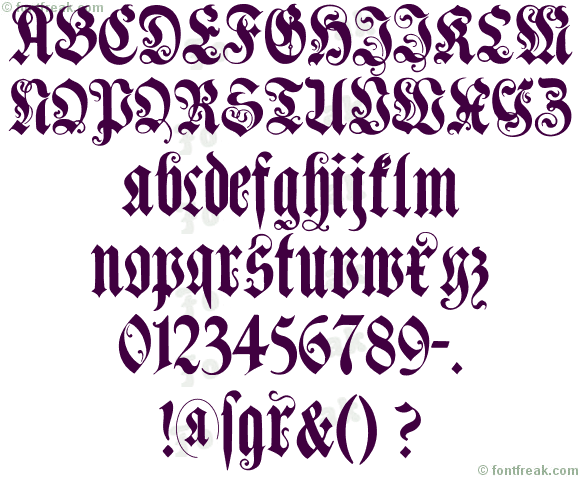
MuenchnerFraktur
About MuenchnerFraktur
MuenchnerFraktur is a striking display font designed by Manfred Klein, categorized as a decorative serif typeface. This font captures the essence of traditional German typography, characterized by its ornate, bold strokes and elegant flourishes. The visual elements of MuenchnerFraktur showcase a high contrast in stroke weight, with thick, robust lines that are softened by delicate curves and intricate details. The spacing is well-balanced, allowing for legibility while maintaining the ornate charm typical of Fraktur-style fonts.
This font is particularly well-suited for a variety of creative applications. It shines in wedding invitations, where its decorative elements add a touch of sophistication and charm. Additionally, MuenchnerFraktur makes a memorable statement on movie posters, bringing a vintage flair that evokes a sense of nostalgia. For restaurant menus, its unique character can enhance the dining experience, making dishes sound even more enticing. Furthermore, small business owners can utilize this font for branding materials, adding an elegant touch to logos and promotional items.
Targeting graphic designers, small business owners, and content creators, MuenchnerFraktur offers a unique opportunity to infuse projects with a historical aesthetic. The font's free availability as freeware makes it accessible for a wide audience, allowing creative professionals to experiment without financial constraints.
What truly sets MuenchnerFraktur apart is its ability to blend tradition with a modern twist. Its intricate details and bold presence make it a versatile choice for designers looking to stand out. Whether used in print or digital formats, the MuenchnerFraktur font free download provides a rich typographic experience that elevates any design project with its distinctive character and charm.